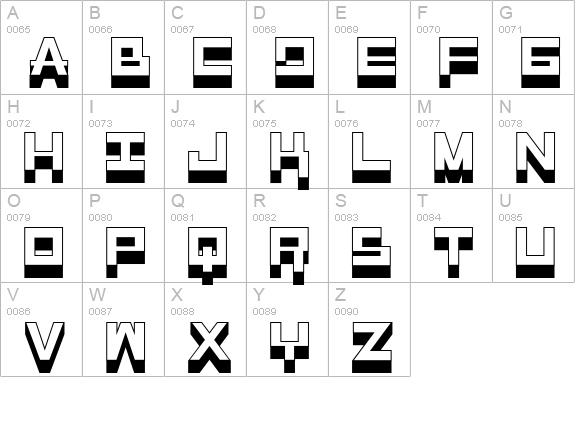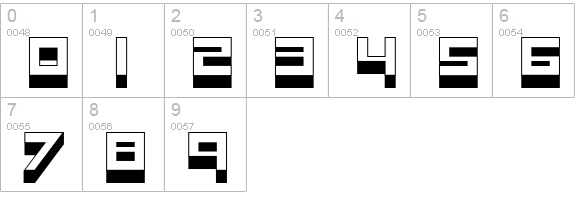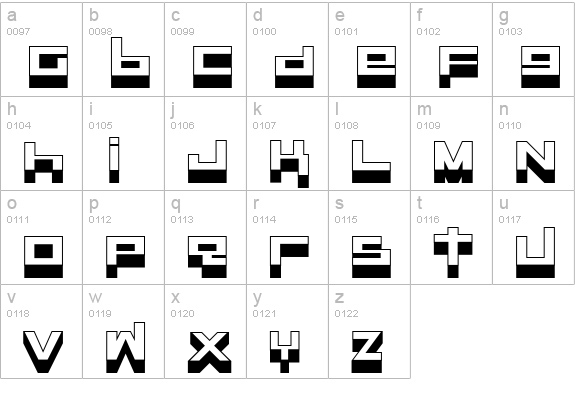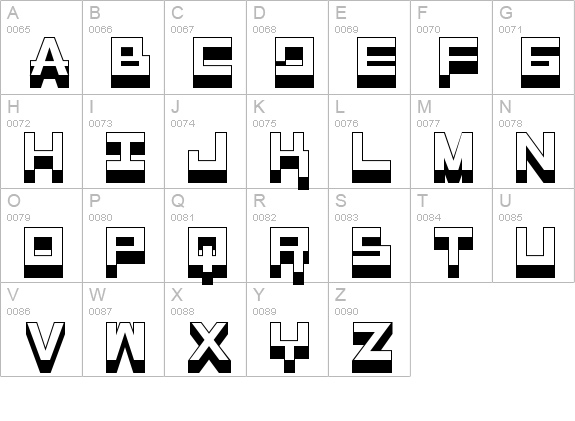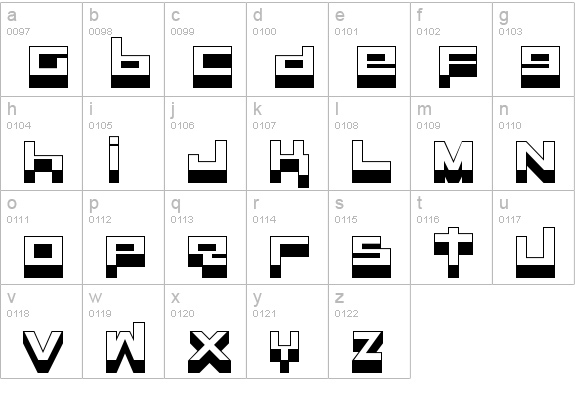
RaseGPL Outline Font Details
RaseGPL Outline font is a beautifully crafted typeface that combines elegance and modernity in a unique way. It is a versatile font that can be used for a variety of design projects, from logos and branding to headlines and posters. One of the standout features of RaseGPL Outline font is its clean and crisp outlines, which give it a distinct and eye-catching appeal. The geometric shapes and precise lines create a sense of sophistication and professionalism, making it a perfect choice for any project that requires a touch of elegance. What sets RaseGPL Outline font apart from other fonts is its availability as a free download. That's right, this amazing font is freely available to download at FontsMarket.com. This means that you can start using it in your designs without any cost, making it a great option for designers on a budget or anyone looking for a high-quality font without breaking the bank. Whether you're a professional designer or a hobbyist, RaseGPL Outline font is sure to impress. Its bold and striking appearance will make your designs stand out from the crowd, while its versatility allows it to adapt to any style or aesthetic. So why wait? Head over to FontsMarket.com and download RaseGPL Outline font today. Start adding a touch of elegance and sophistication to your designs, all while enjoying the freedom of a free font.